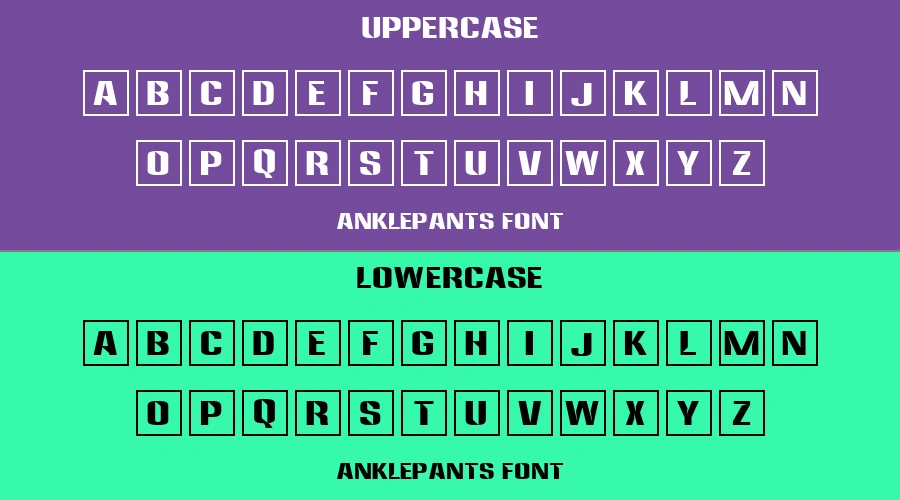
About Anklepants Font
Anklepants Font embodies typographic excellence through its masterful combination of rectangular counters and rhythmic flow. Created for wayfinding systems, this typeface delivers exceptional durability and professional authority across all applications. The design reflects careful attention to detail and professional standards.
Advanced capabilities include distinctive elegant proportions and versatile stylistic sets, giving designers creative control. When used in business cards, Anklepants Font exhibits remarkable consumer preference. The harmonious balance between shoulder shape and institutional trust sets this typeface apart.